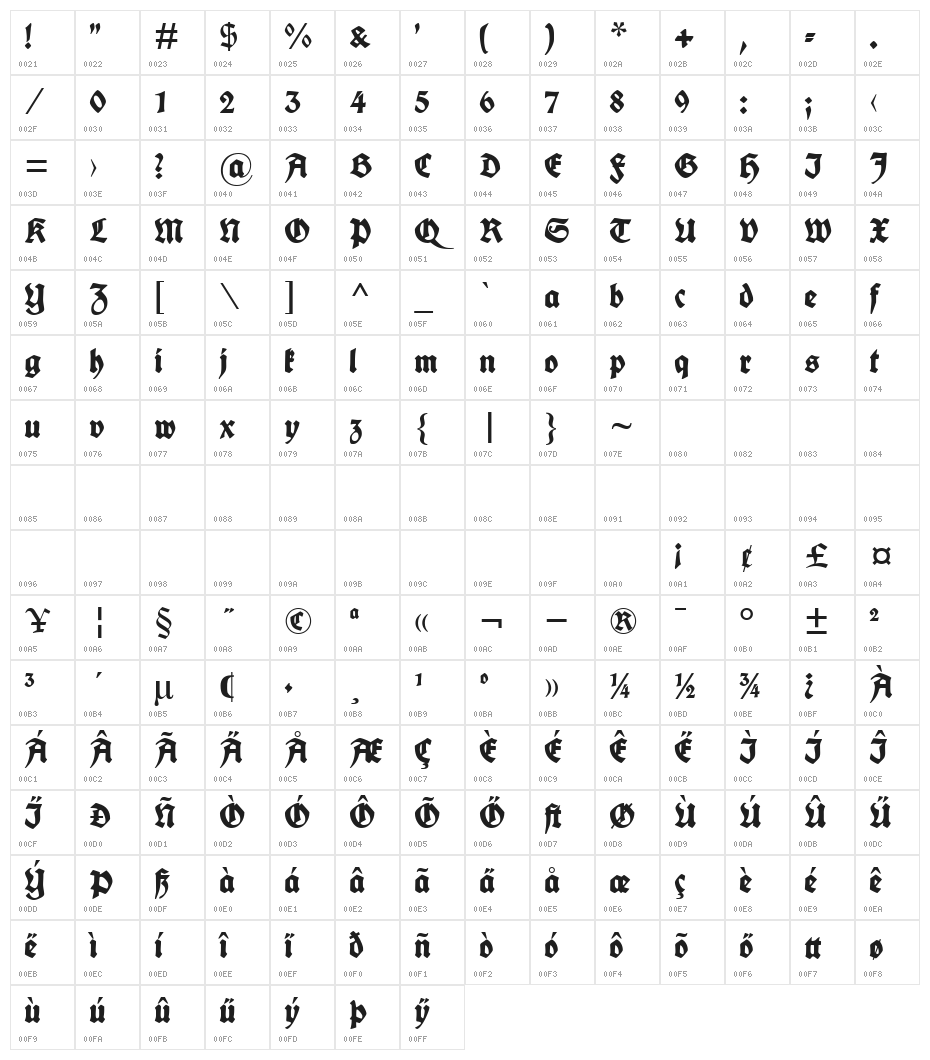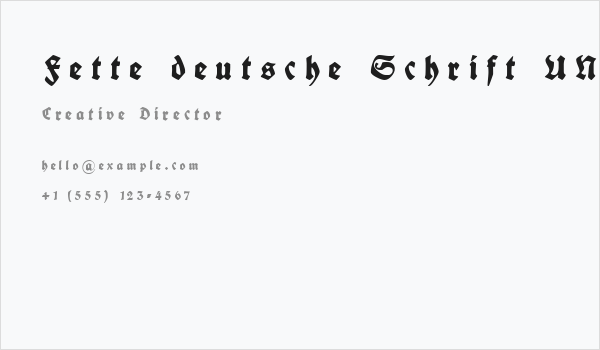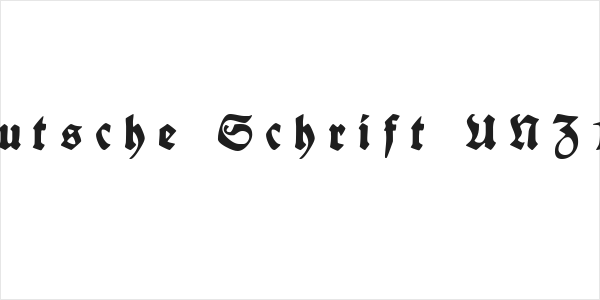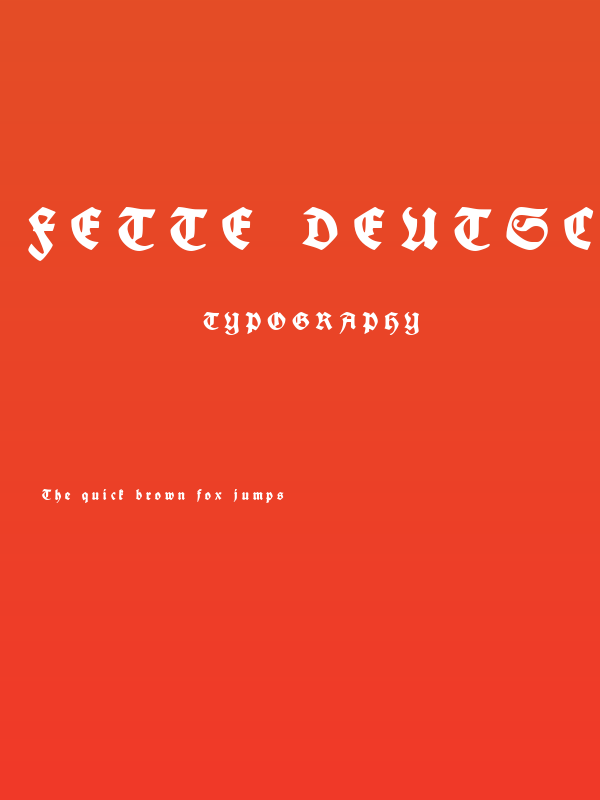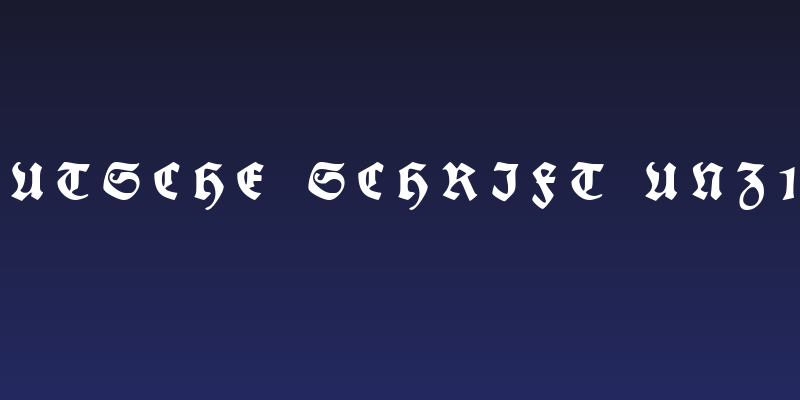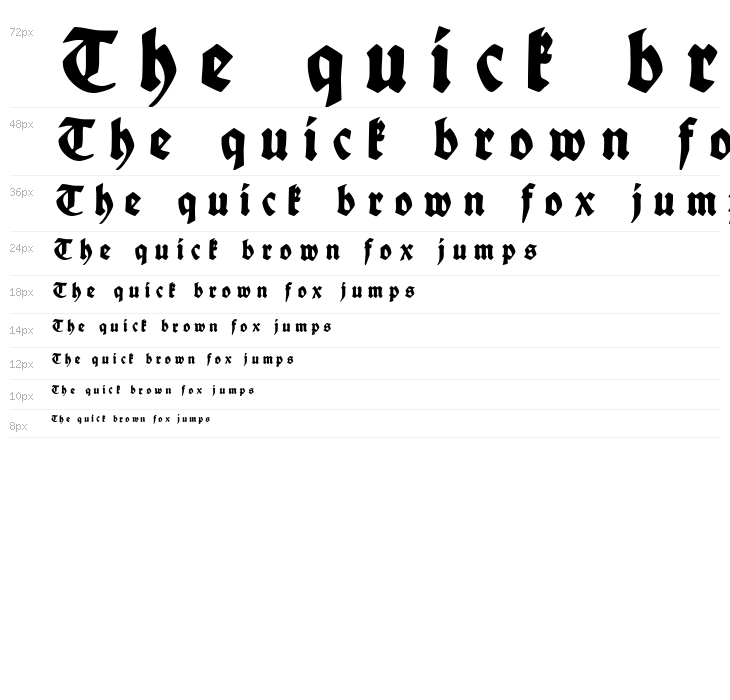
Fette deutsche Schrift UNZ1L Italic Font
Fette deutsche Schrift UNZ1L Italic Description
This font exhibits a bold and dramatic style, characterized by its sharp, angular strokes and intricate details. The uppercase letters are particularly striking, with their elaborate flourishes and strong presence. The lowercase letters maintain a consistent style, offering a harmonious blend with the uppercase. The numerals are equally bold, ensuring readability while maintaining the overall aesthetic. Special characters are designed with the same attention to detail, making them suitable for decorative purposes. This font is reminiscent of traditional blackletter styles, offering a sense of historical elegance and formality.